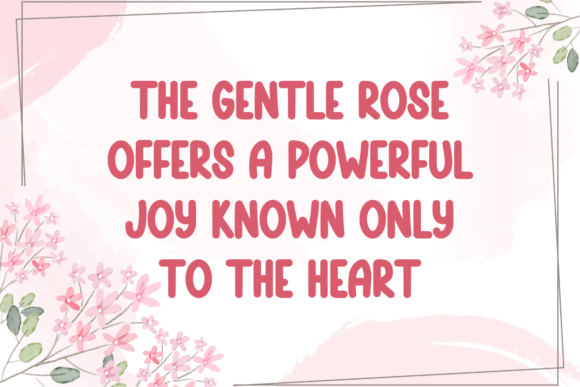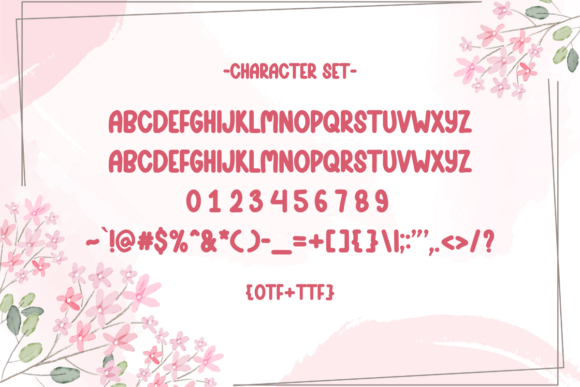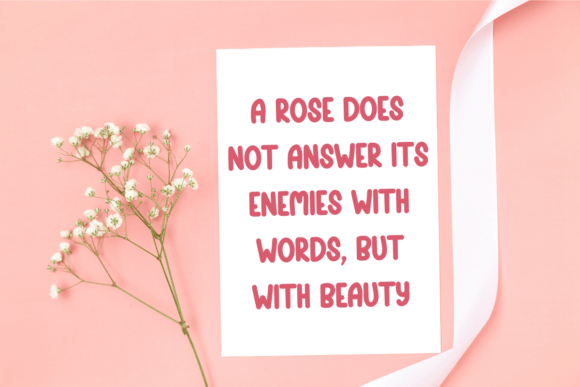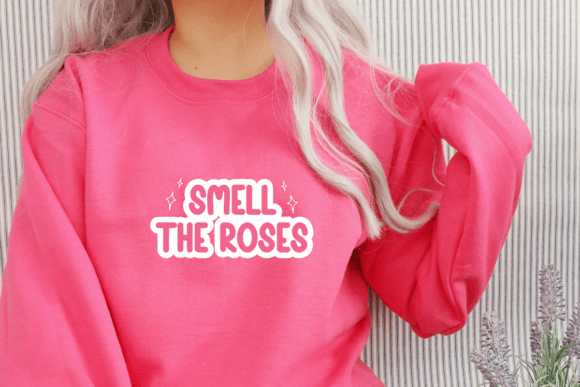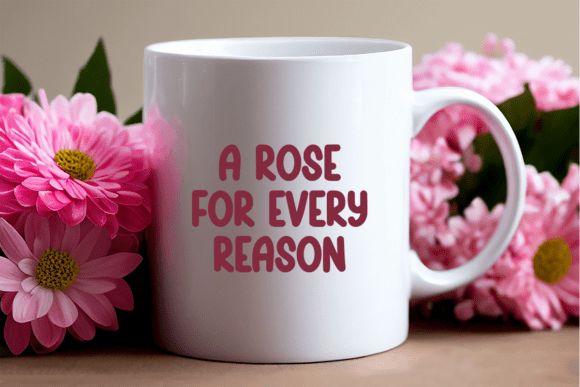
Introducing Happy Roses: The Perfect Font for Crafters and Designers
Are you a crafter, designer, or maker looking for a fun and bold handwritten font to elevate your creative projects? Look no further than Happy Roses! This delightful font is perfect for a wide range of applications, from crafts and planners to KDP, stickers, greeting cards, and more.
What Makes Happy Roses So Special?
Happy Roses is a unique and charming handwritten font that exudes a sense of friendliness and approachability. Its cute and playful style makes it an ideal choice for crafters and designers who want to add a personal touch to their projects. Whether you’re creating custom stickers, greeting cards, or DIY crafts, Happy Roses is sure to bring a smile to your face and make your projects stand out.
Perfect for Cricut, Sublimation, and Creative DIY Projects
One of the best things about Happy Roses is its versatility. This font works seamlessly with popular cutting machines like Cricut, making it easy to create custom vinyl decals, iron-on designs, and paper crafts. It’s also perfect for sublimation projects, such as custom mugs, tumblers, and other personalized items.
For crafters and DIY enthusiasts, Happy Roses is a dream come true. Use it to create handmade cards, gift tags, and other paper crafts that are sure to impress. The font’s bold and playful style also makes it perfect for creating eye-catching signs, posters, and other decorative items.
Ideal for Crafters, Designers, and Makers
Happy Roses is more than just a font – it’s a creative tool that’s designed to help you bring your ideas to life. Whether you’re a professional designer or a hobbyist crafter, this font is sure to inspire you to create something amazing.
Here are just a few ways that Happy Roses can be used:
- Create custom stickers and labels for your products or crafts
- Design personalized greeting cards and gift tags
- Make custom vinyl decals for your car, laptop, or water bottle
- Create eye-catching posters and signs for your business or event
- Design unique and personalized gifts, such as custom mugs and tumblers
Why Choose Happy Roses?
So why choose Happy Roses over other fonts? Here are just a few reasons:
- Unique and playful style: Happy Roses has a one-of-a-kind style that’s sure to make your projects stand out.
- Easy to read: Despite its playful style, Happy Roses is easy to read and understand, making it perfect for a wide range of applications.
- Versatile: This font works well in a variety of contexts, from crafts and DIY projects to professional design applications.
- Fun to use: Happy Roses is a joy to work with, and is sure to bring a smile to your face as you create.
Get Ready to Create Something Amazing!